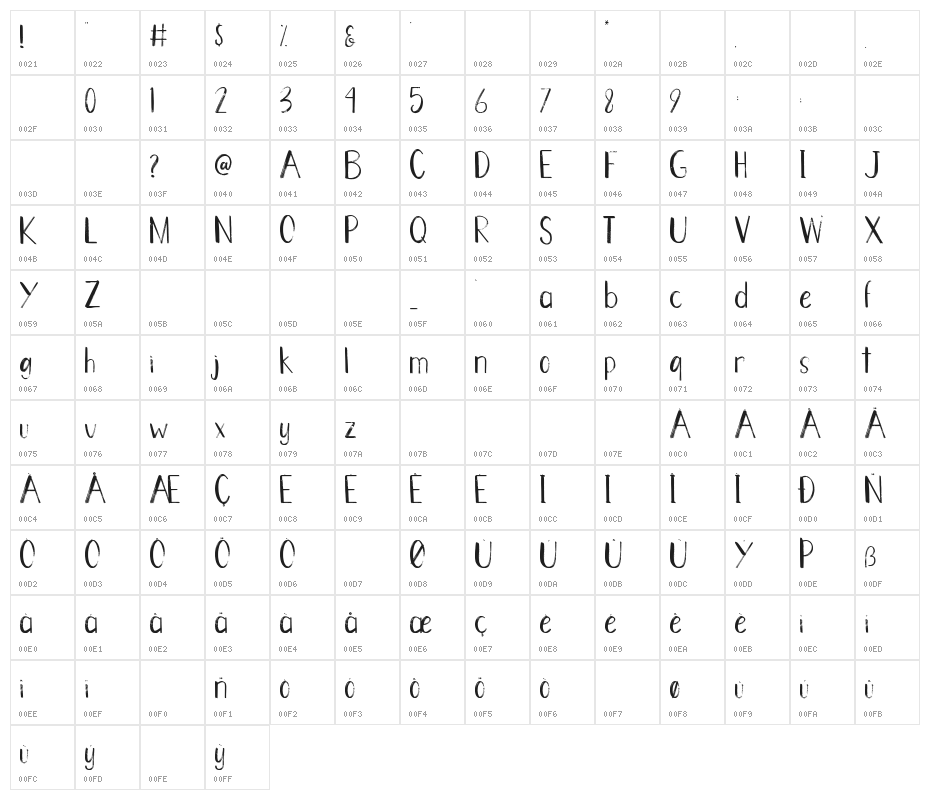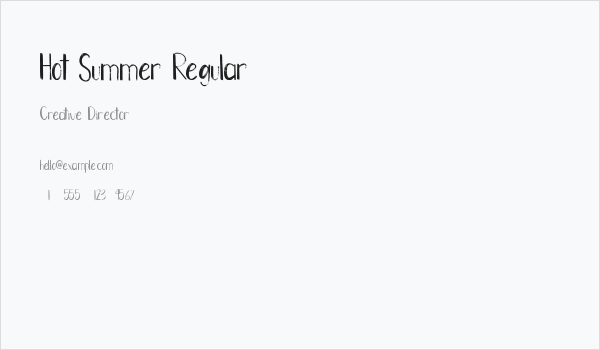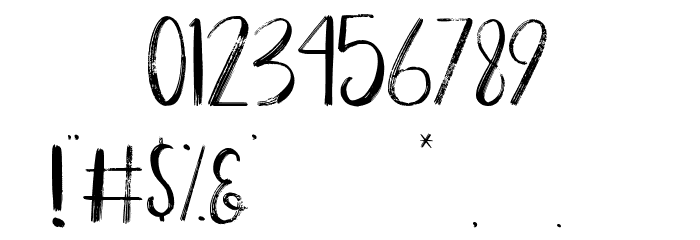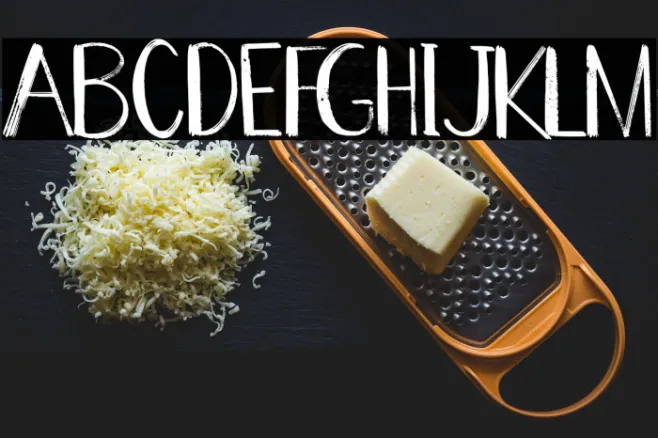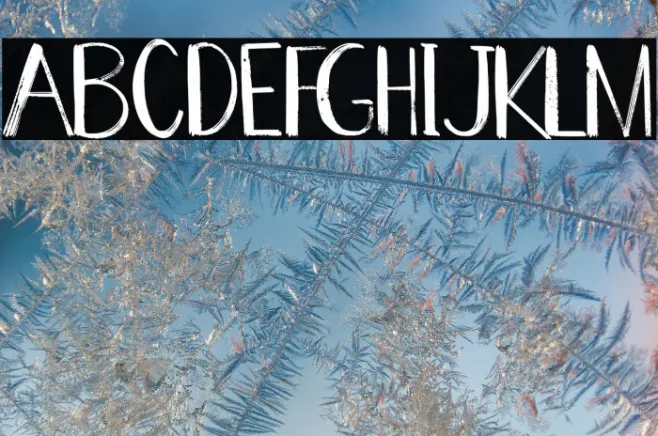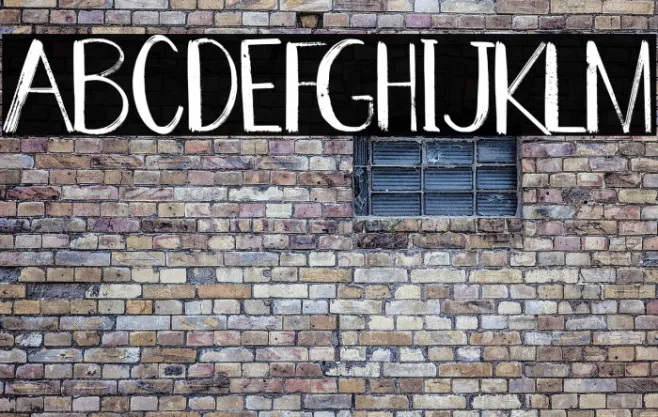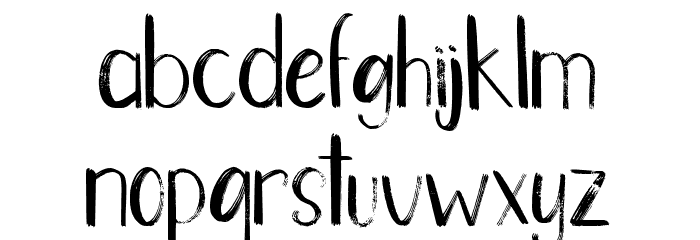
Hot Summer Regular Font
Hot Summer Regular Description
This font features a playful and artistic style with a hand-drawn appearance. The letters are uneven and slightly irregular, giving it a casual and informal look. The strokes are varied, with some parts appearing bold and others thin, creating a dynamic and textured effect. The uppercase and lowercase letters maintain a consistent style, with a slight slant that adds to the whimsical feel. The numbers and special characters follow the same design, ensuring a cohesive look across all elements. This font is ideal for projects that require a creative and relaxed vibe.
| Proposed Projects | Ideal for greeting cards, posters, children's books, and creative branding projects. |